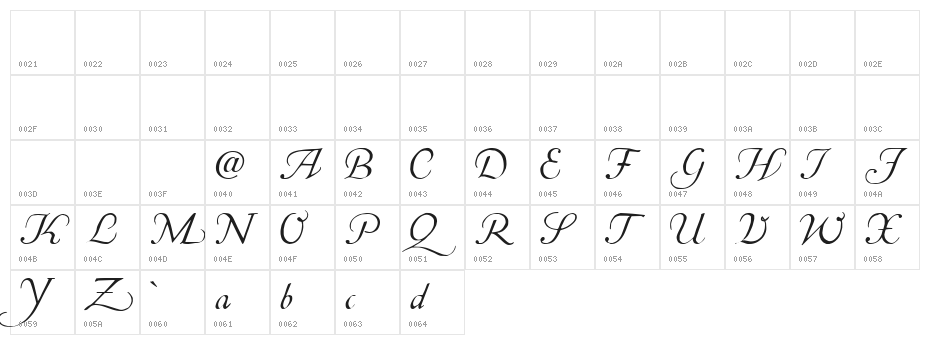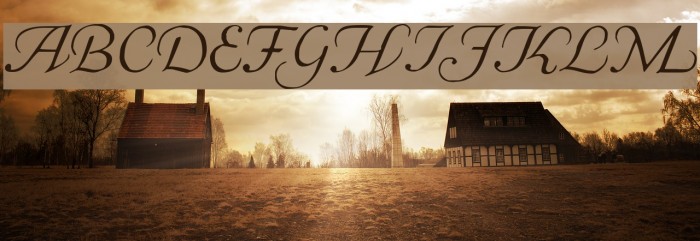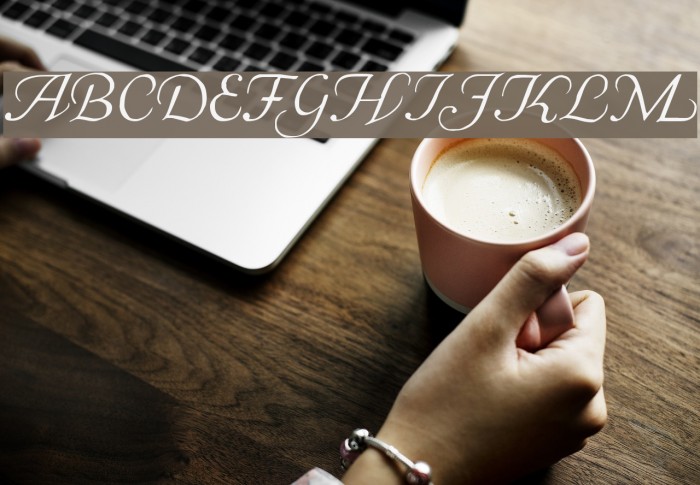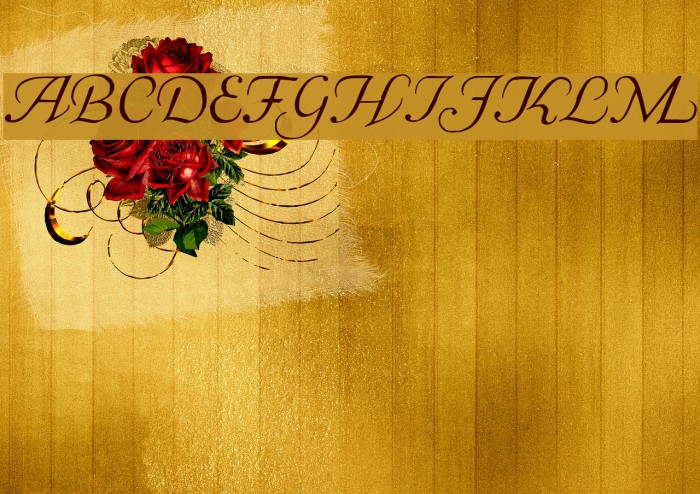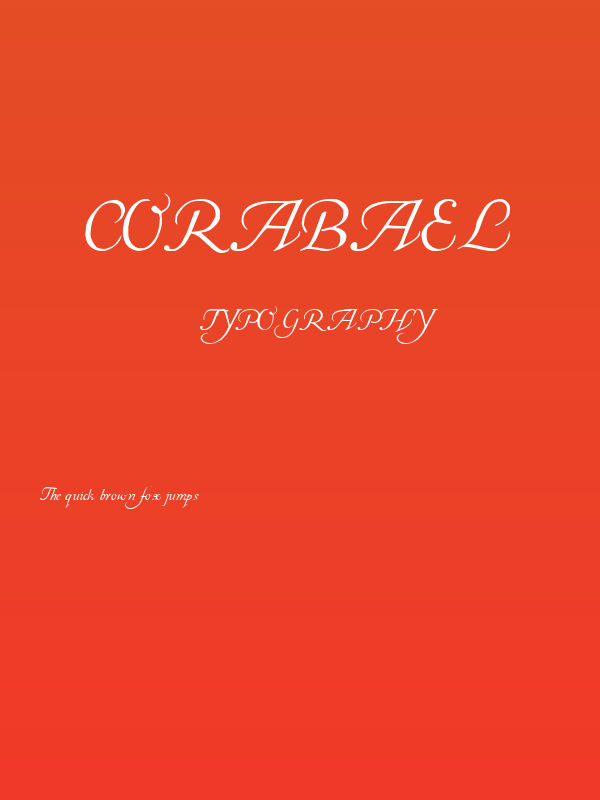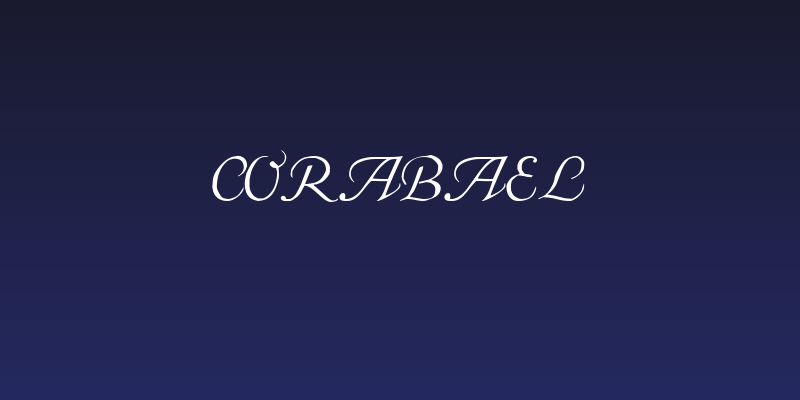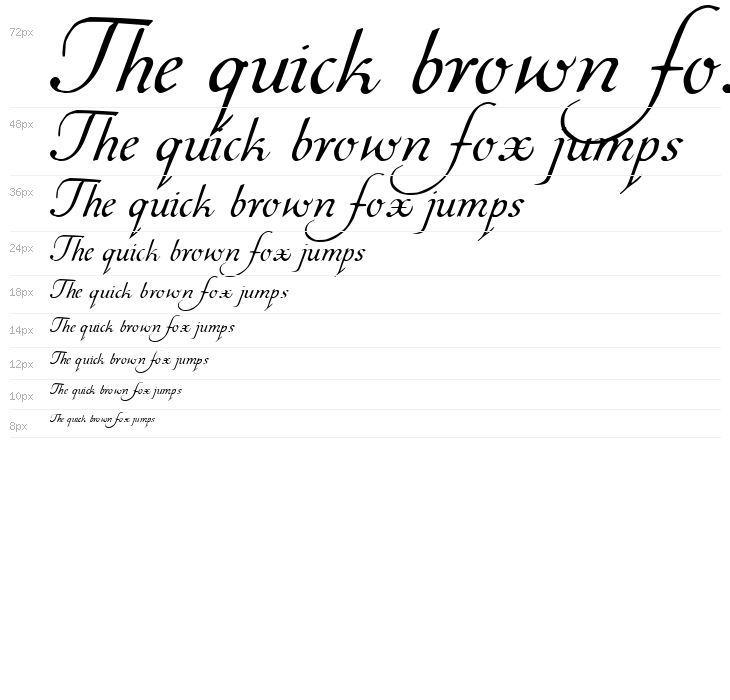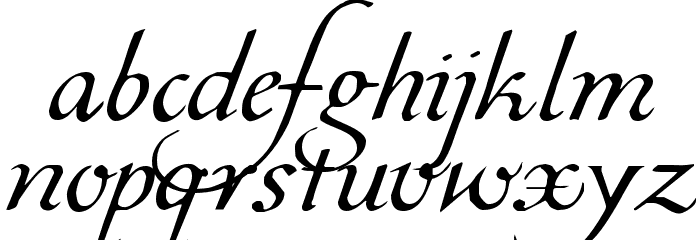
Corabael Font
Corabael Description
This elegant script font features flowing, cursive letterforms with a classic and sophisticated style. The uppercase letters are adorned with graceful loops and swashes, adding a touch of formality and flair. The lowercase letters maintain a consistent flow, with smooth connections between characters, enhancing readability while retaining an artistic touch. The numerals are designed to complement the overall aesthetic, with a slight slant that matches the cursive style. Special characters are thoughtfully integrated, maintaining the font's cohesive look. This font is ideal for projects that require a touch of elegance and refinement.
| Overall Style | Classic |
| Use Case | Headlines, Invitations, Branding |
| Proposed Projects | Wedding invitations, elegant branding, formal event programs, and luxury product packaging. |